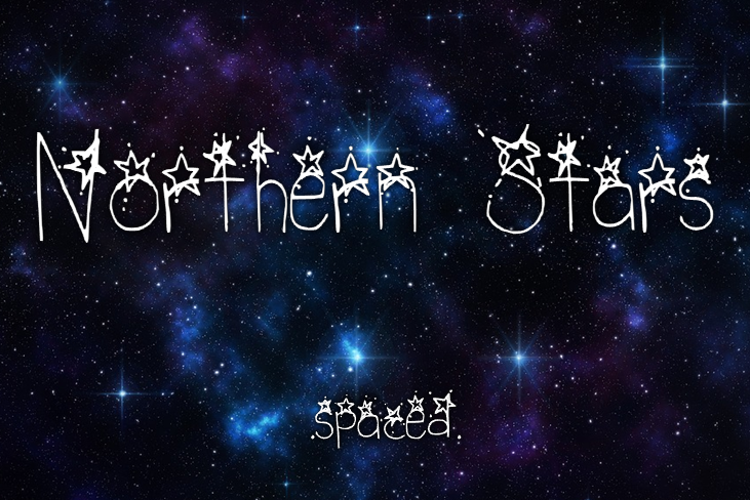
Northern Stars _ Spaced Font
This Northern Stars *spaced* font is different to the regular version of Northern Stars as the letters are a teeny bit more further apart and its lowercase letter baseline is straight (and not randomly going up and down as it does in the regular version - which personally, I love) but for those who like a lowercase straight baseline, this font's for you. If anyone is interested in a Commercial Licence, 99c will get you one at https://www.creativefabrica.com/designer/shelley-2 Thank you!